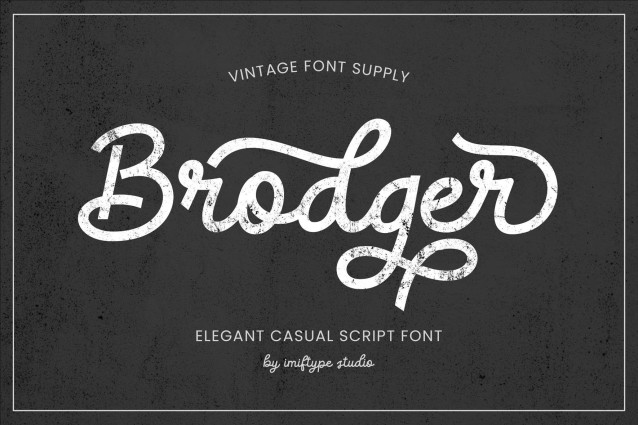
Brodger Script Font
Brodger Script Font is a classic script font with a modern twist. Its flowing lines and delicate strokes create a sense of nostalgia, while its clean and contemporary design ensures it remains relevant. Perfect for adding a touch of vintage charm to your designs.